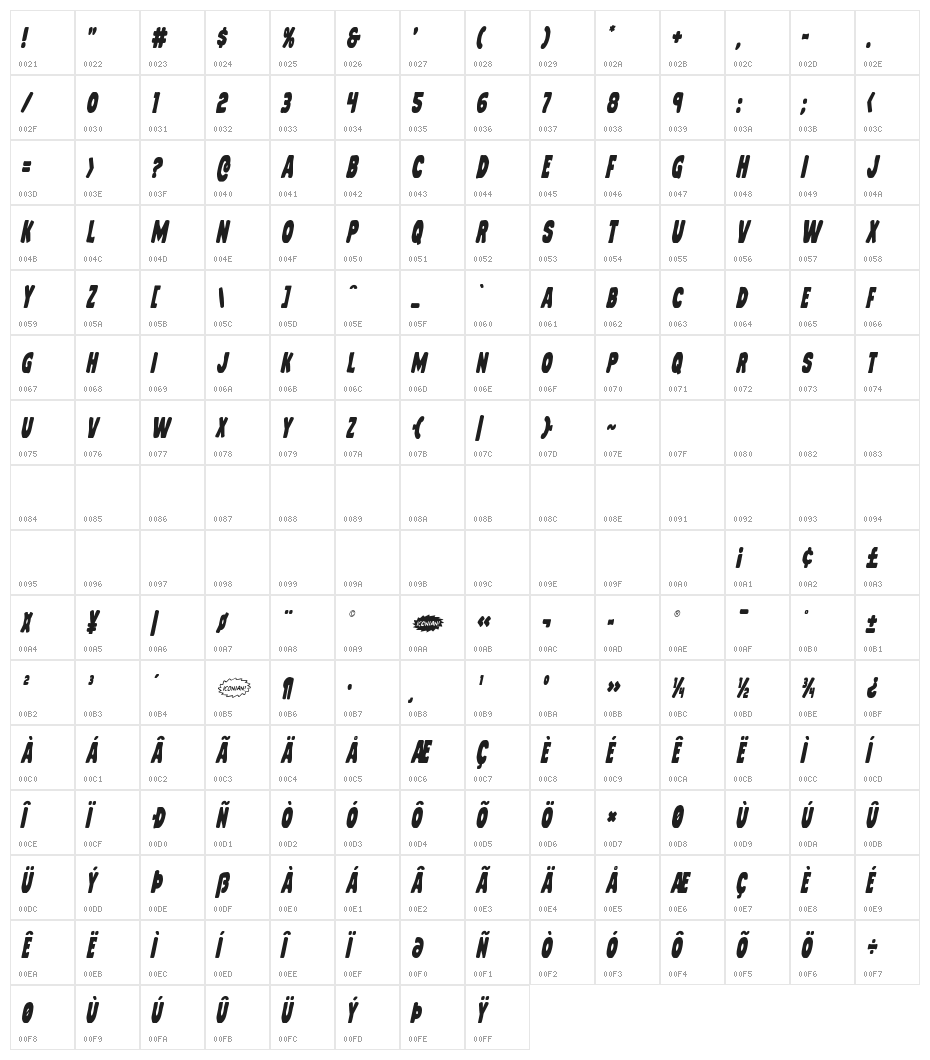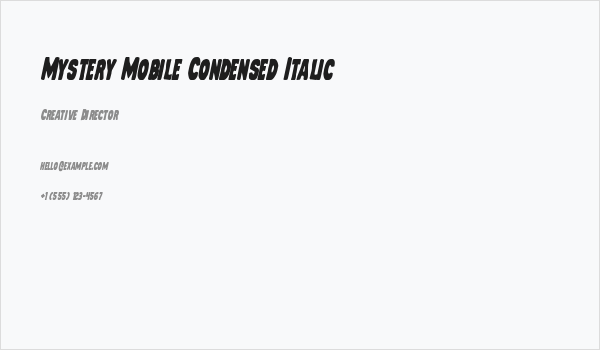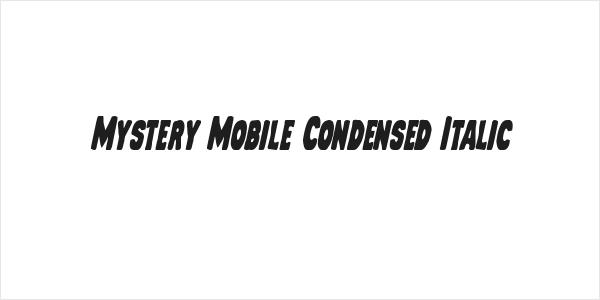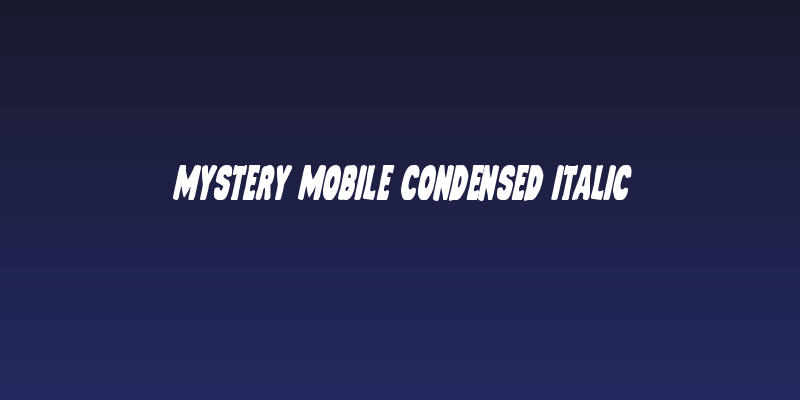
Mystery Mobile Condensed Italic Font
Mystery Mobile Condensed Italic Description
This font features a bold and dynamic style with a condensed and italicized form. The characters are thick and robust, giving a strong visual impact. The italic slant adds a sense of motion and energy, making it suitable for attention-grabbing headlines. The condensed width allows for more text in a limited space without sacrificing readability. The font maintains a consistent stroke weight throughout, ensuring a uniform appearance. Its playful and modern aesthetic makes it ideal for creative projects that require a bold statement.